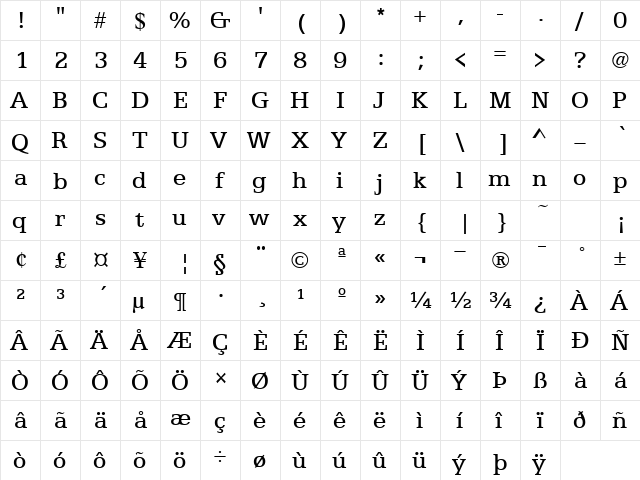
EgpytianTextM Regular
Design Context for EgpytianTextM Typeface
EgpytianTextM offers clean, dependable letterforms without strong stylistic allegiance, making it a practical choice for designers who need flexibility.